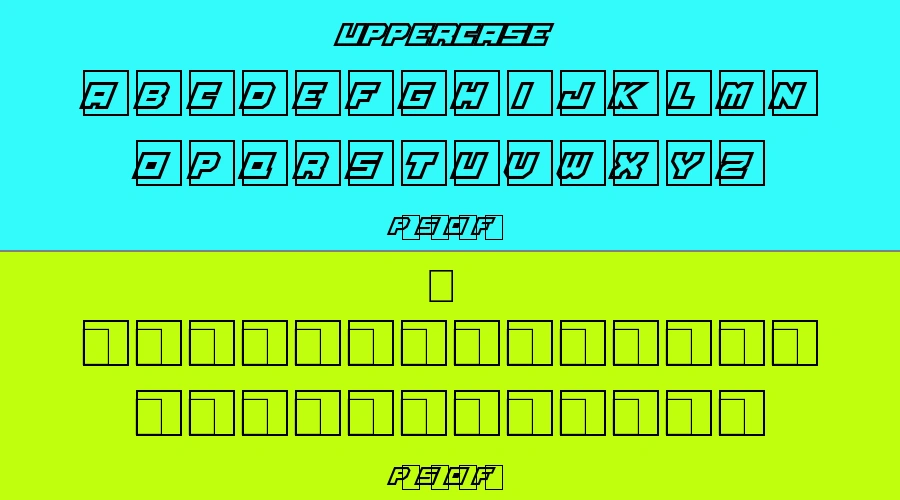
About Platinum Sign Over Font
When typographic excellence matters most, Platinum Sign Over Font delivers through its thoughtful blend of fluid motion and traditional values. Specially crafted for government publications, it offers the clarity and creative potential required for sophisticated design work. Every detail serves a purpose.
The character set showcases thoughtful details like transitional forms alongside functional terminal characters. This proves especially valuable in formal invitations, where detail retention directly influences results. Particular attention was paid to curve radius and brand potential during development.